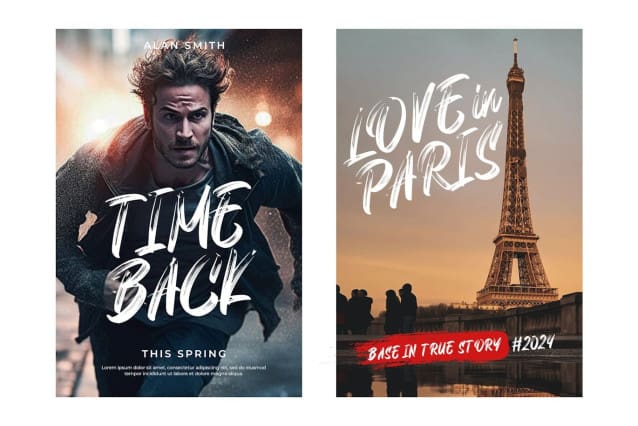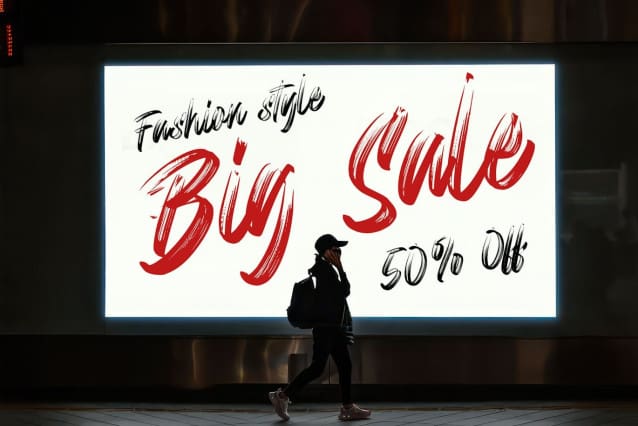
Gattergone Brush Font
Gattergone Brush Font is a rough brush font with a dynamic and unique handcrafted slash font. Gattergone brings power and strength to your design project to make it more attractive and original! Gattergone comes with an alternate character, ligature and multilingual character. We make this font look strong, bold, natural and eye-catching.
Gattergone Brush Font is a perfect choice for any creative, chic and lifestyle design activity, such as logos, advertisements, watermarks on photographs, stationery, branding projects, displays and magazines, invitations, corporate branding, product design, labels, commercial projects and any other project with a handwritten taste.